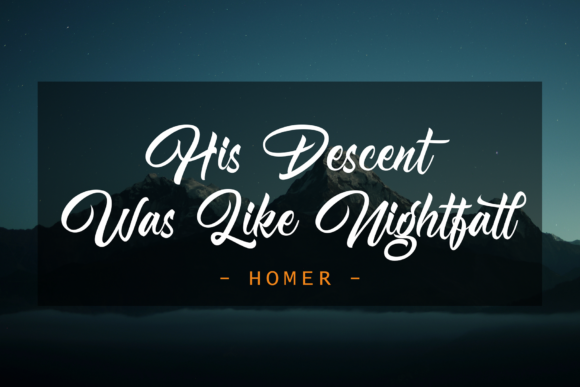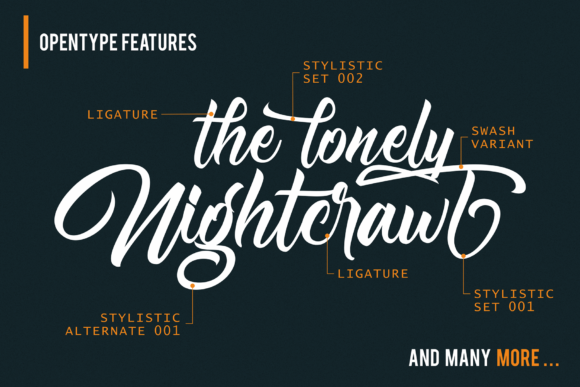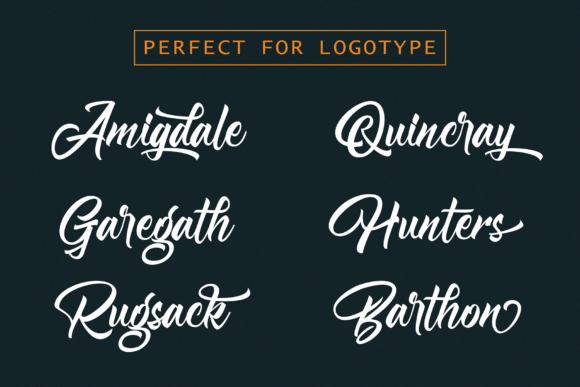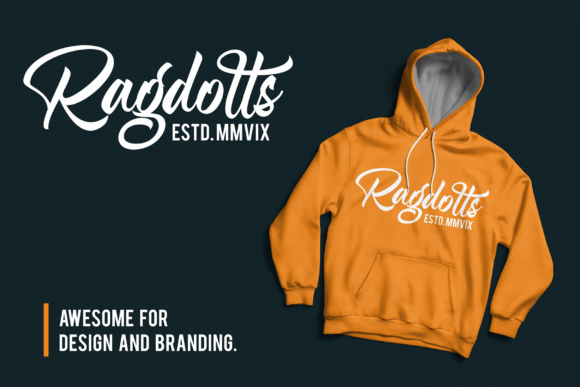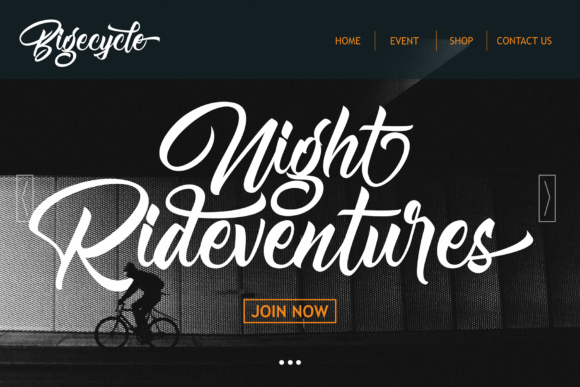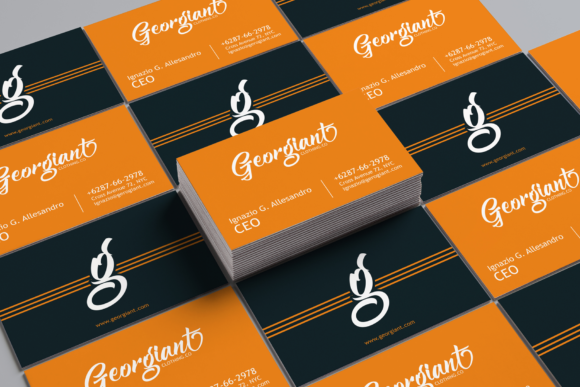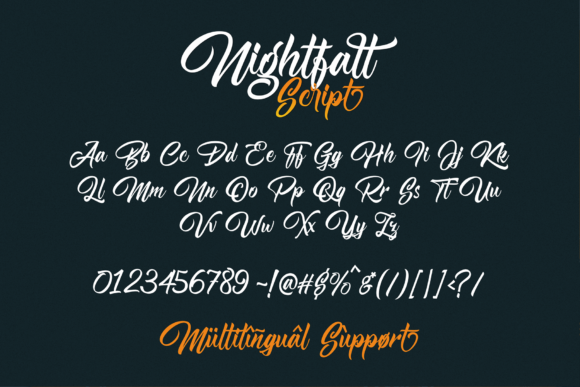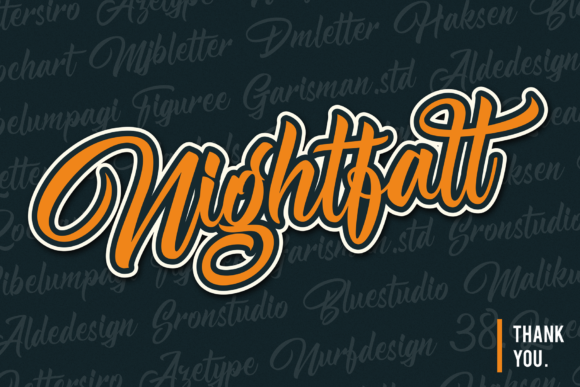
Nightfall Font
About Nightfall Font
Nightfall is a simple, yet elegant script with a cool feel. Use it to turn any design project into a true standout!